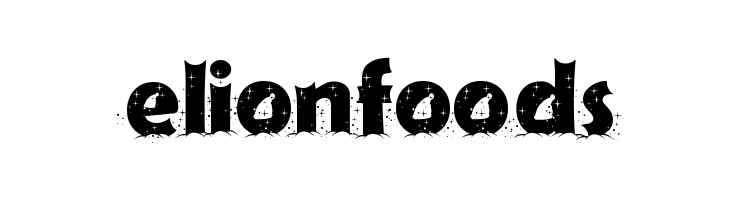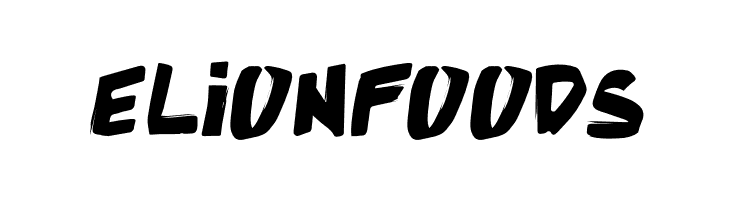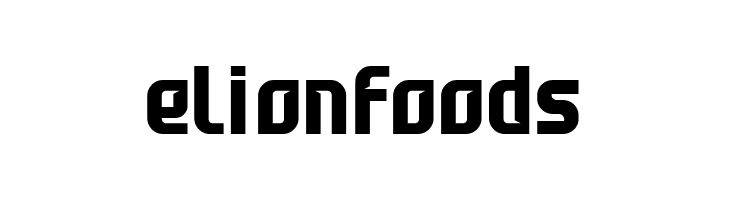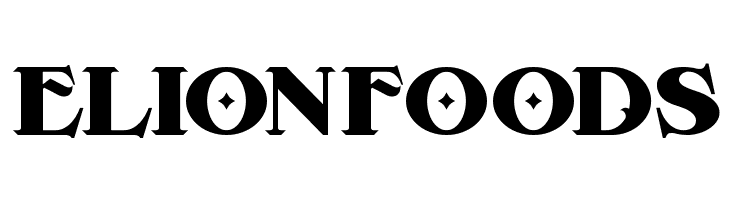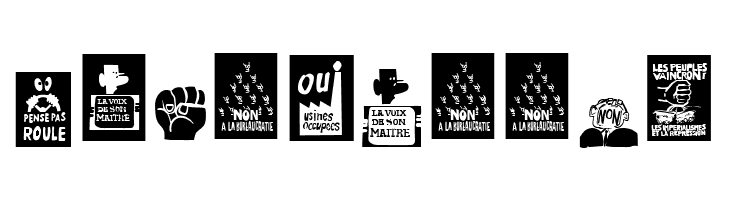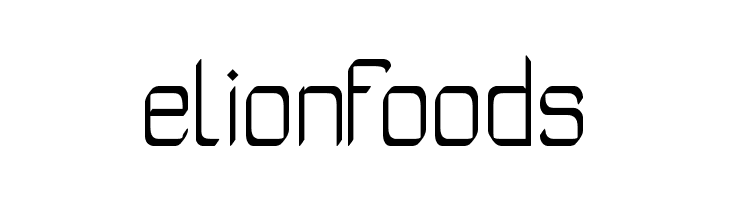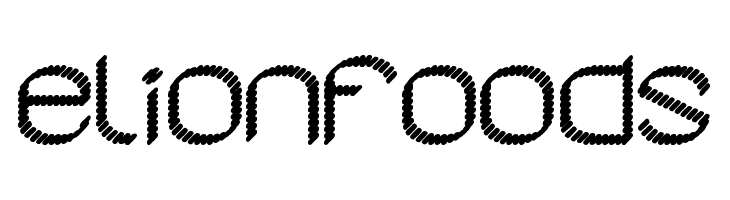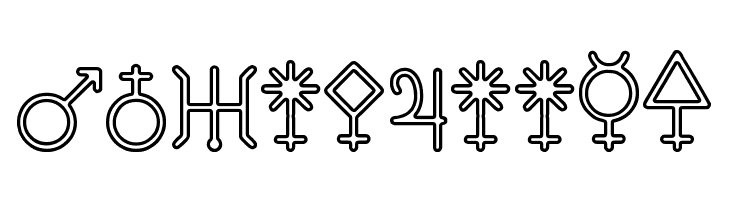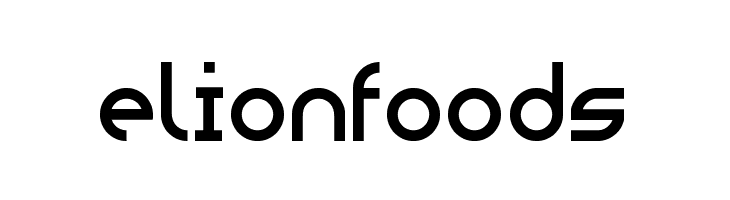
( Konstantine Studio - konstantinestudio.com/ )
A dynamic and flowing script font with elegant, sweeping strokes.
( LJ Design Studios - Luis Jaramillo - www.ljdesignstudios.com )
A bold, decorative font with a distressed, festive style.
( Magdalena Horvat )
A bold, dynamic brush script font with an energetic and expressive style.
( Nurf Designs )
A bold, modern font with geometric influences, ideal for impactful designs.
( Peter Olexa - www.dealjumbo.com )
A bold, decorative font with vintage flair and intricate details.
( Sandra Sisofo )
A collection of protest posters with bold, expressive typography and imagery.
( Southype - Rodrigo Gonzalez - www.southype.com )
A modern, geometric font with sleek lines and a sophisticated appearance.
( Southype - Rodrigo Gonzalez - www.southype.com )
A modern, decorative font with diagonal stripe patterns in each character.
( Southype - Rodrigo Gonzalez - www.southype.com )
A collection of bold, clear astronomical symbols with a cosmic theme.
( Southype - Rodrigo Gonzalez - www.southype.com )
A bold, geometric font with a modern and clean design.